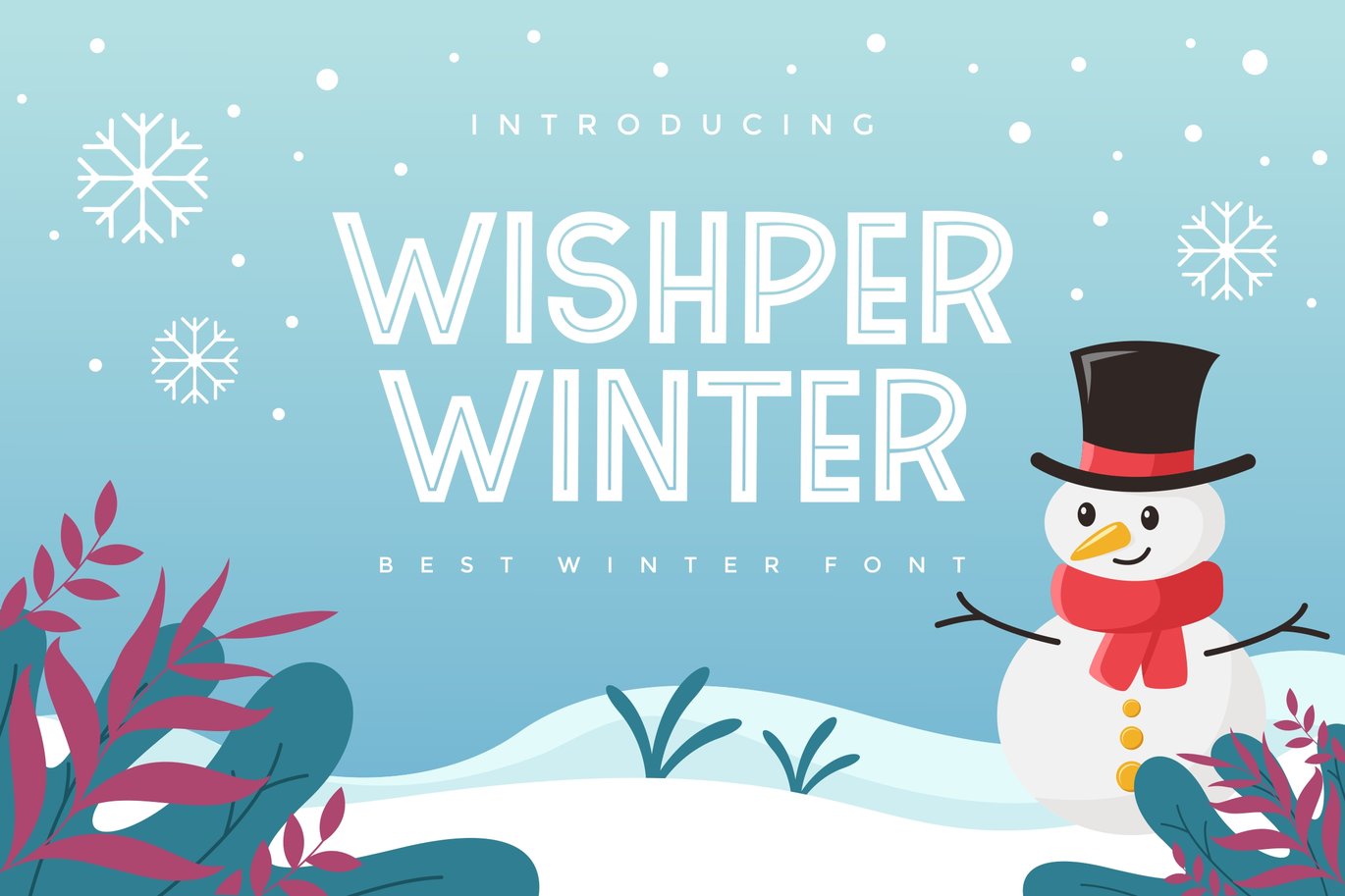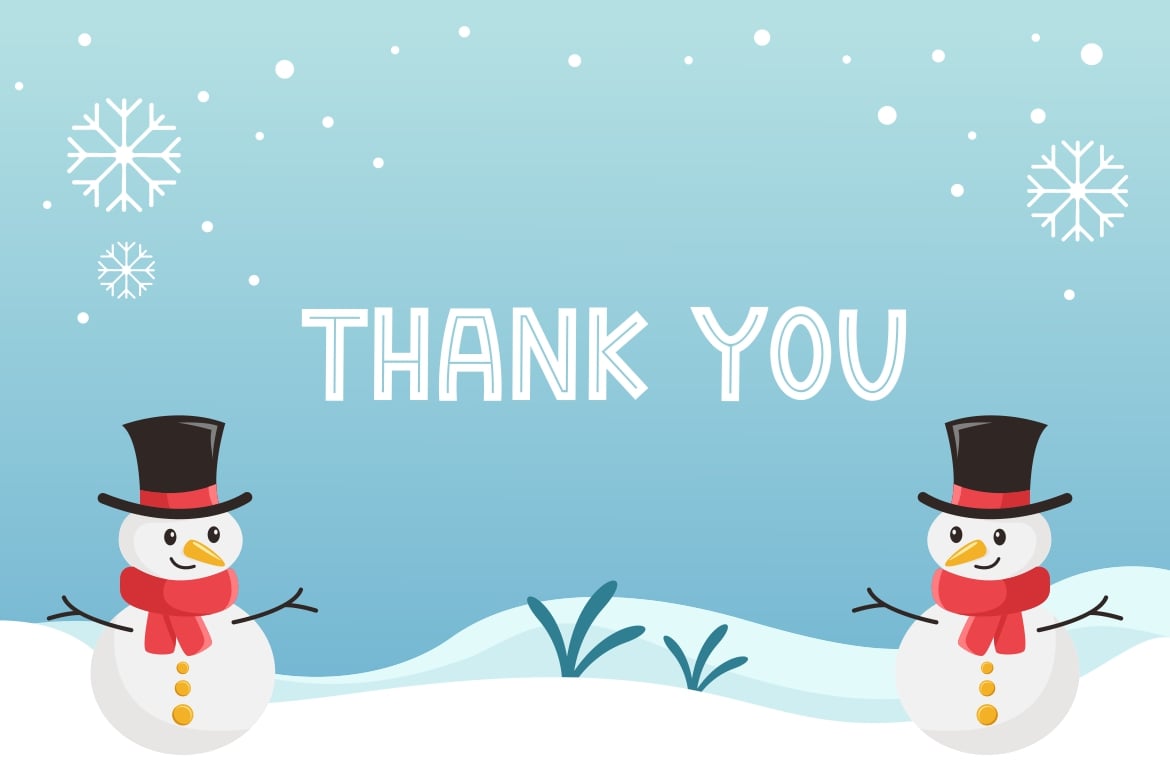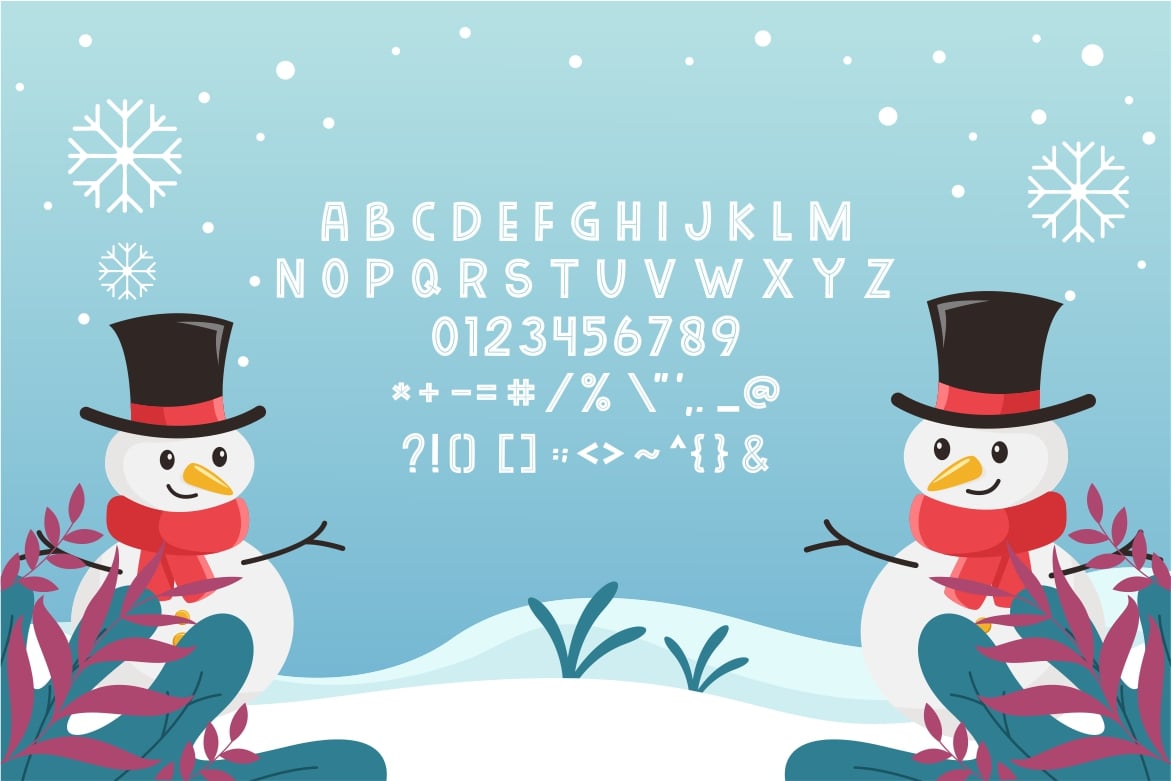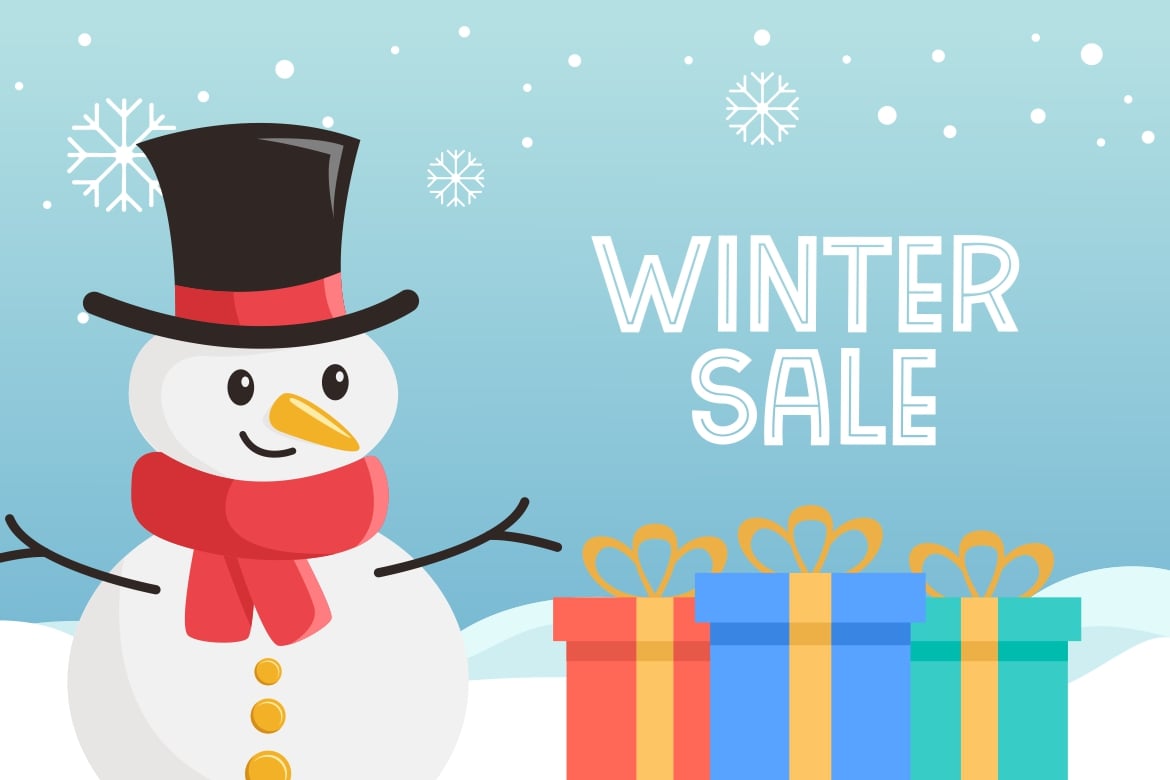
Wishper Winter – Modern Font
Introducing our new product Wishper Winter – Modern Font
Wishper Winter font embodies the grace of the season, resembling snowflakes with its elegant design. The subtle curves and frosty accents convey tranquility, making it ideal for holiday messages and creative projects. This font adds a touch of frosty charm, bringing the magic of winter to your words.